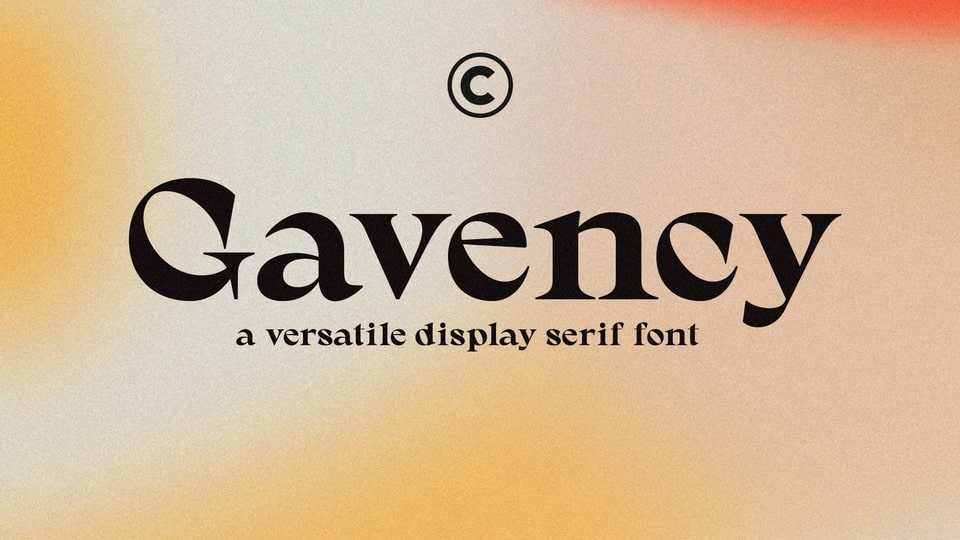
Download Gavency font, a versatile display typeface that can be used for any design project. Gavency font has a modern and stylish appearance, making it perfect for creating labels, headers, or anything else you need to add a touch of class to your work.